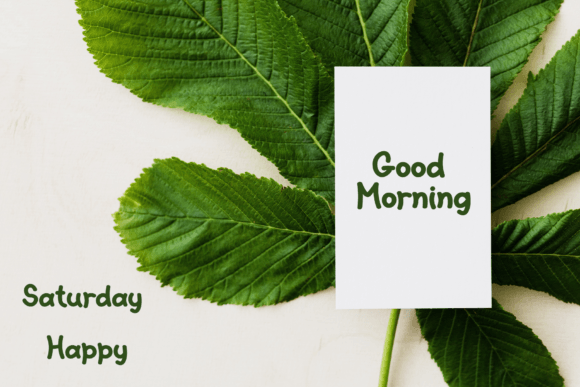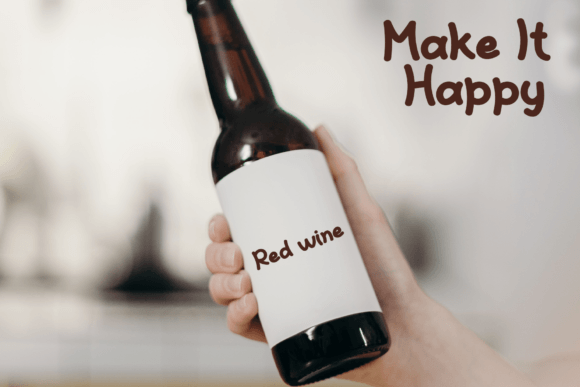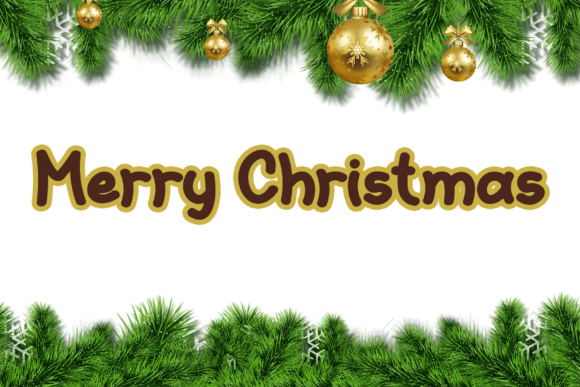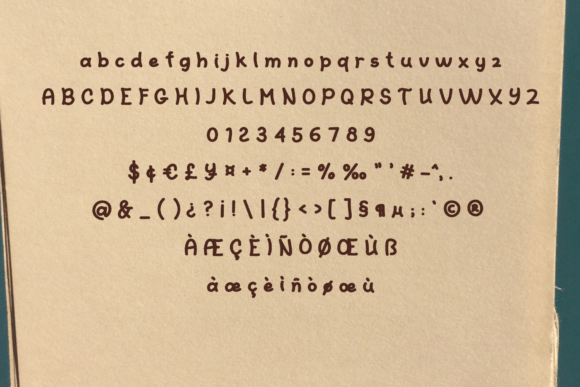
Cupcakes Font: The Sweetest Addition to Your Design Toolbox
Are you a designer, crafter, or digital artist looking for a font that can add a touch of whimsy and fun to your projects? Look no further than Cupcakes Font! This cool and modern display font is perfect for a wide range of applications, from crafts and digital design to presentations and greeting cards. In this article, we’ll dive into the features and benefits of Cupcakes Font, and explore how it can become your go-to font for any occasion.
What is Cupcakes Font?
Cupcakes Font is a unique and eye-catching display font that is sure to make your designs stand out. With its modern and sleek design, this font is perfect for adding a touch of sweetness to your projects. Whether you’re creating a birthday card, a social media graphic, or a presentation, Cupcakes Font is the perfect choice.
Key Features of Cupcakes Font
- Modern and sleek design: Cupcakes Font has a fresh and contemporary look that is sure to appeal to designers and crafters of all levels.
- Highly versatile: This font can be used for a wide range of applications, from digital design to crafts and presentations.
- Easy to read: Despite its decorative nature, Cupcakes Font is highly legible, making it perfect for use in body text and headlines.
- Scalable: This font can be scaled up or down without losing any of its charm, making it perfect for use in a variety of contexts.
Uses for Cupcakes Font
So, what can you use Cupcakes Font for? The possibilities are endless! Here are just a few ideas to get you started:
- Crafts: Use Cupcakes Font to add a personal touch to your craft projects, such as scrapbooking, card making, and DIY gifts.
- Digital design: Add a touch of whimsy to your social media graphics, blog posts, and website designs with Cupcakes Font.
- Presentations: Make your presentations stand out with Cupcakes Font, perfect for use in titles, headings, and bullet points.
- Greeting cards: Create beautiful and unique greeting cards for any occasion with Cupcakes Font.
Why Choose Cupcakes Font?
So, why should you choose Cupcakes Font for your next project? Here are just a few reasons:
- Unique and eye-catching: Cupcakes Font is a one-of-a-kind font that is sure to make your designs stand out.
- Easy to use: This font is highly legible and easy to use, even for those with limited design experience.
- Highly versatile: Cupcakes Font can be used for a wide range of applications, making it a great addition to any design toolbox.
- Fun and playful: This font has a fun and playful vibe that’s perfect for adding a touch of personality to your designs.
Tips for Using Cupcakes Font
Here are a few tips for getting the most out of Cupcakes Font:
- Use it sparingly: Cupcakes Font is a bold and eye-catching font, so use it sparingly to avoid overwhelming your design.
- Pair it with other fonts: Experiment with pairing Cupcakes Font with other fonts to create a unique and visually appealing design.
- Experiment with colors: Cupcakes Font looks great in a variety of colors, so don’t be afraid to experiment and find the perfect hue for your design.
In conclusion, Cupcakes Font is a cool and modern display font that is perfect for designers, crafters, and digital artists of all levels. With its highly versatile design, ease of use, and fun and playful vibe, this font is sure to become your go-to font for any occasion. Whether you’re creating crafts, digital designs, presentations, or greeting cards, Cupcakes Font is the perfect choice. So why wait? Download Cupcakes Font today and start adding a touch of sweetness to your designs!